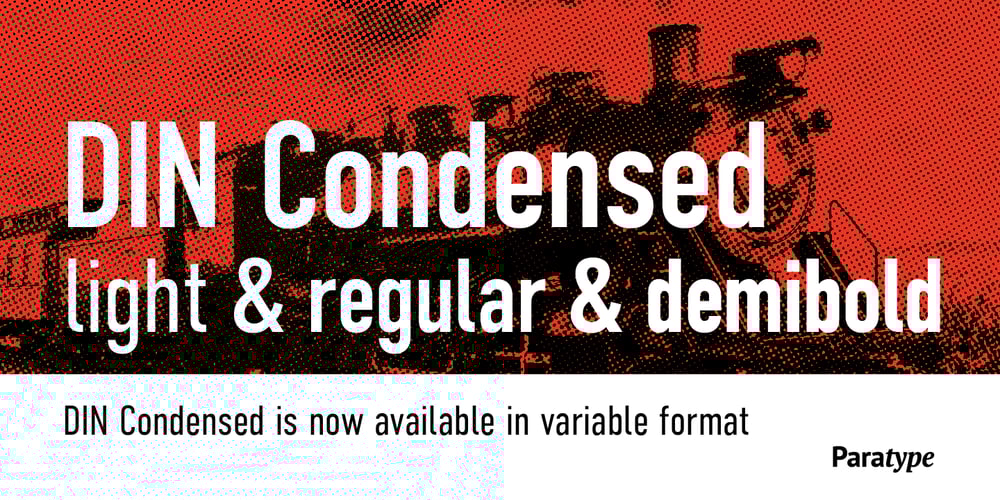
Din Condensed
Din Condensed font
Din Condensed Font Family was designed by Tagir Safayev, Manvel Shmavonyan, Isabella Chaeva and published by ParaType. Din Condensed contains 4 styles and family package options. Designed at Paratype (ParaGraph) in 1997 by Tagir Safayev. Based on a condensed style of DIN type family (Linotype Staff designers). That is a group of sans serif faces made to conform to the German Industrial Standard. Based on geometric style, they vary in width but not in weight. Light style was added in 2014 by Manvel Schmavonyan. Demi Bold style was added in 2020 by Isabella Chaeva.